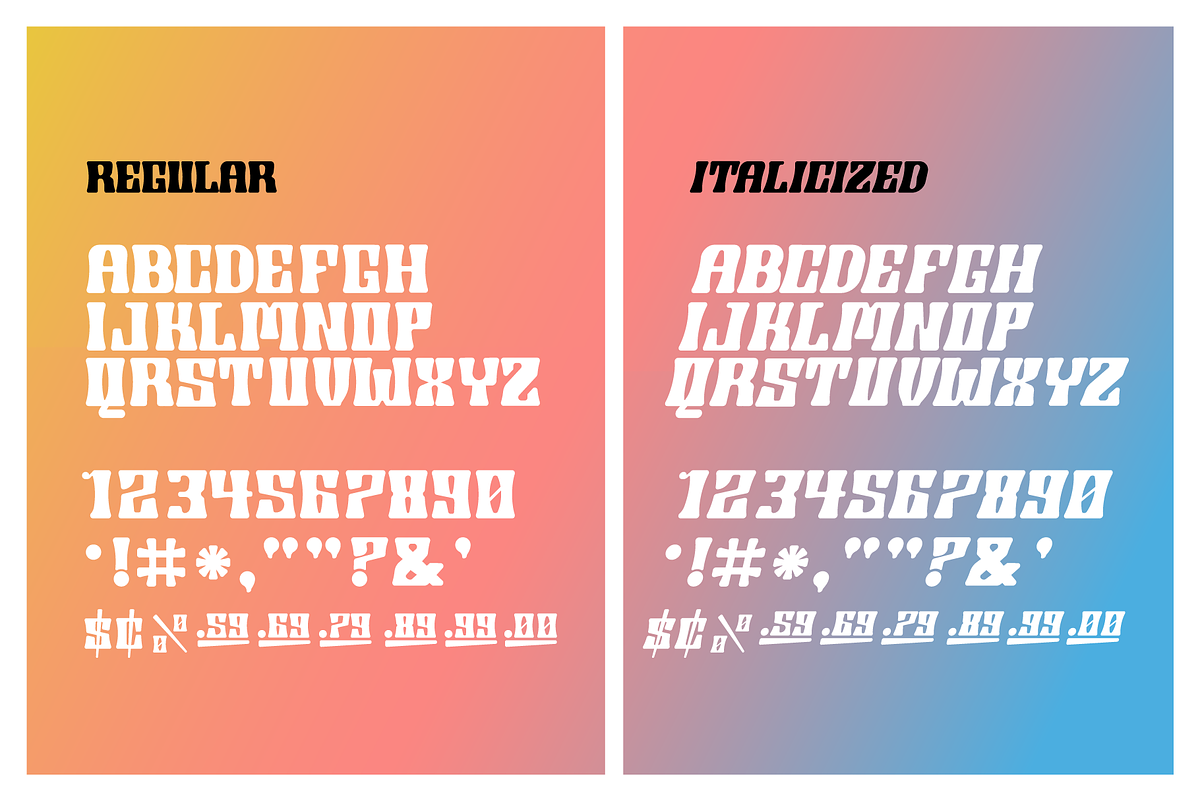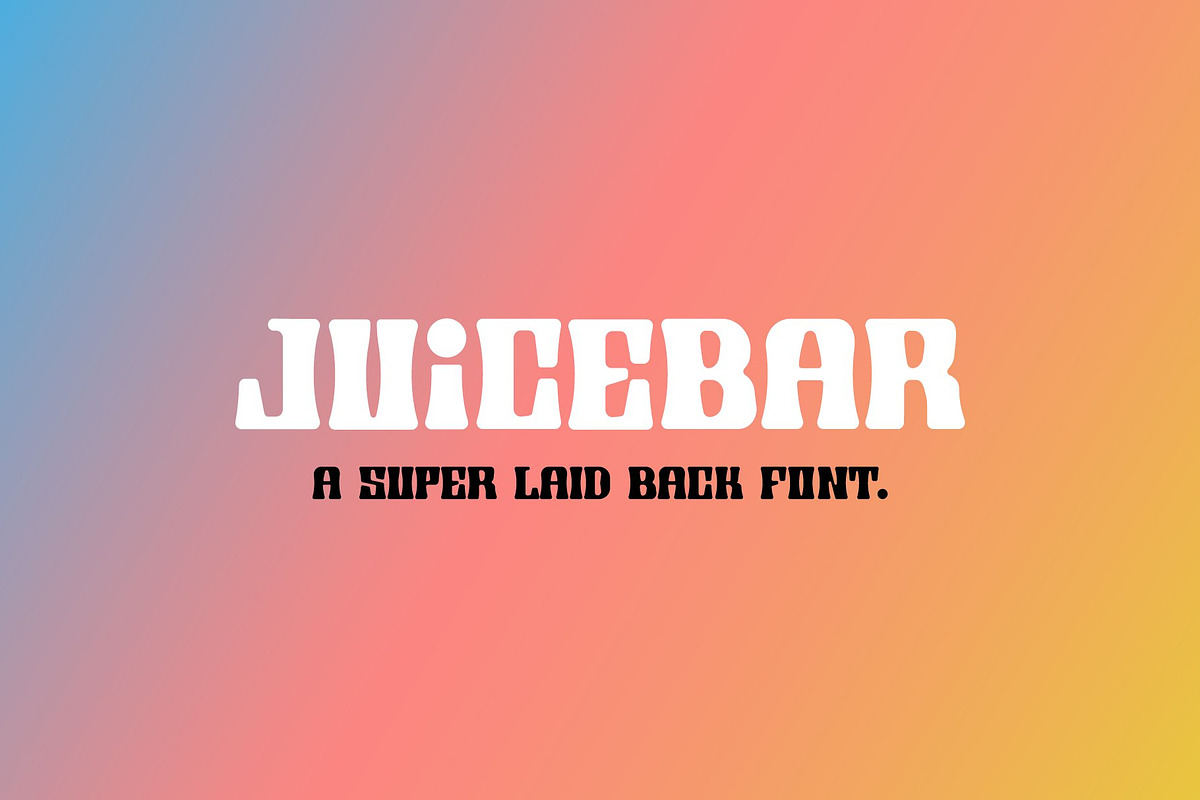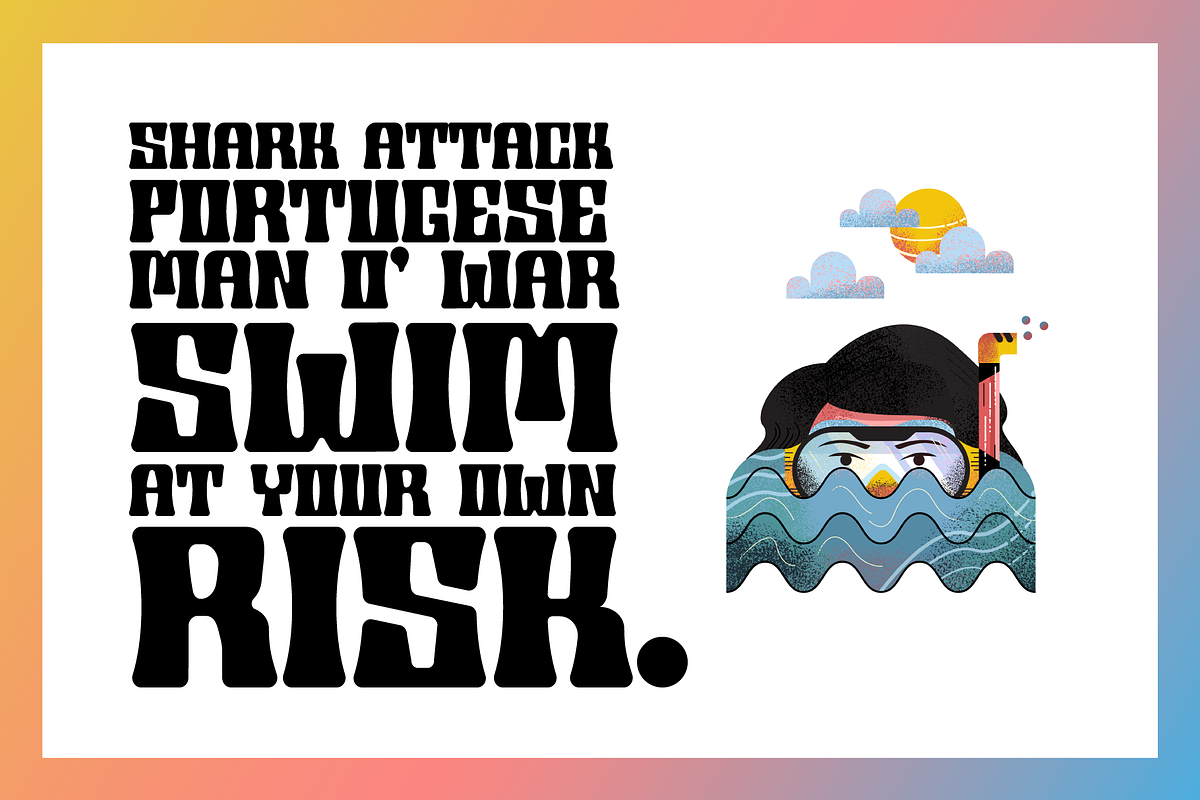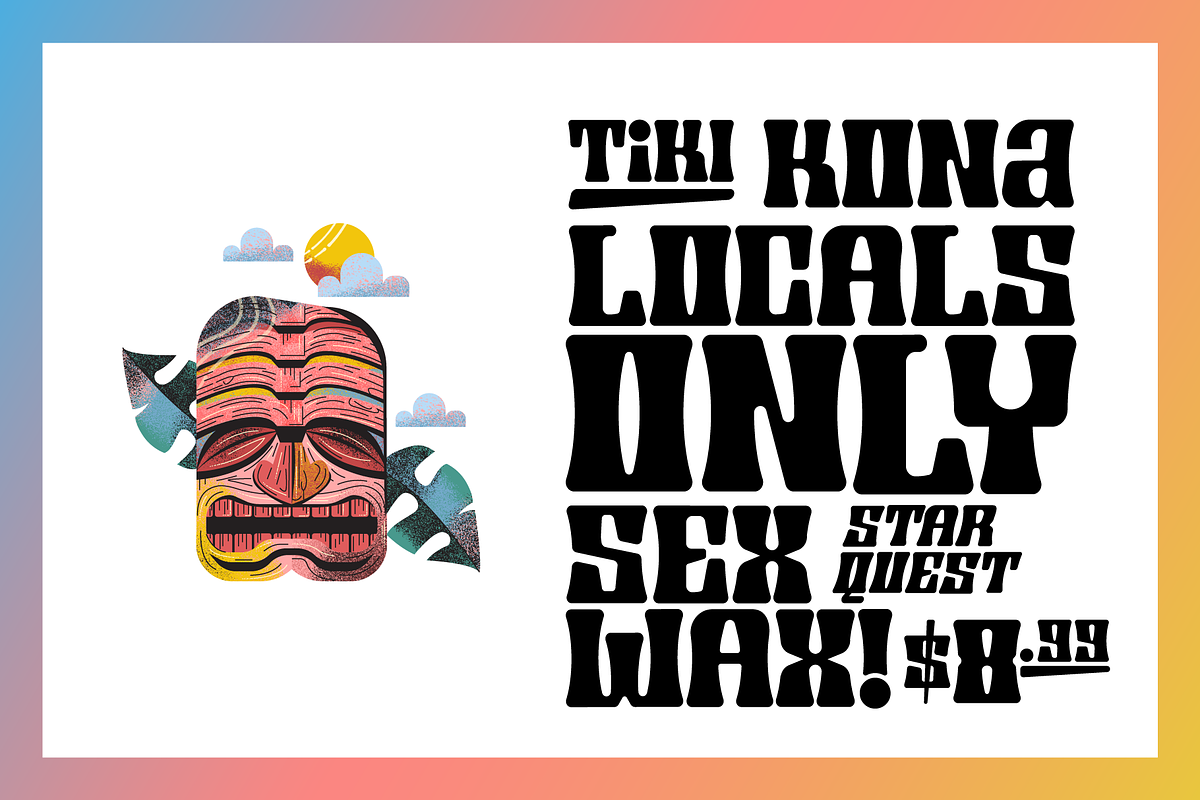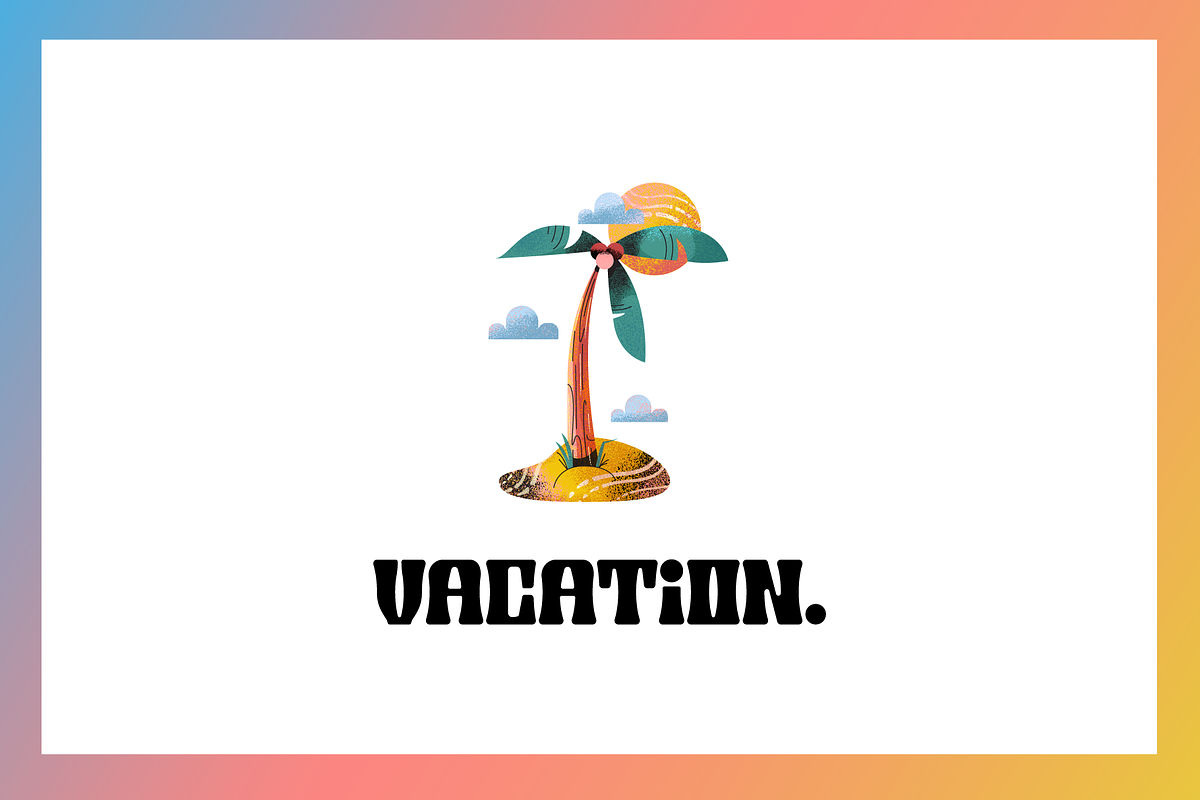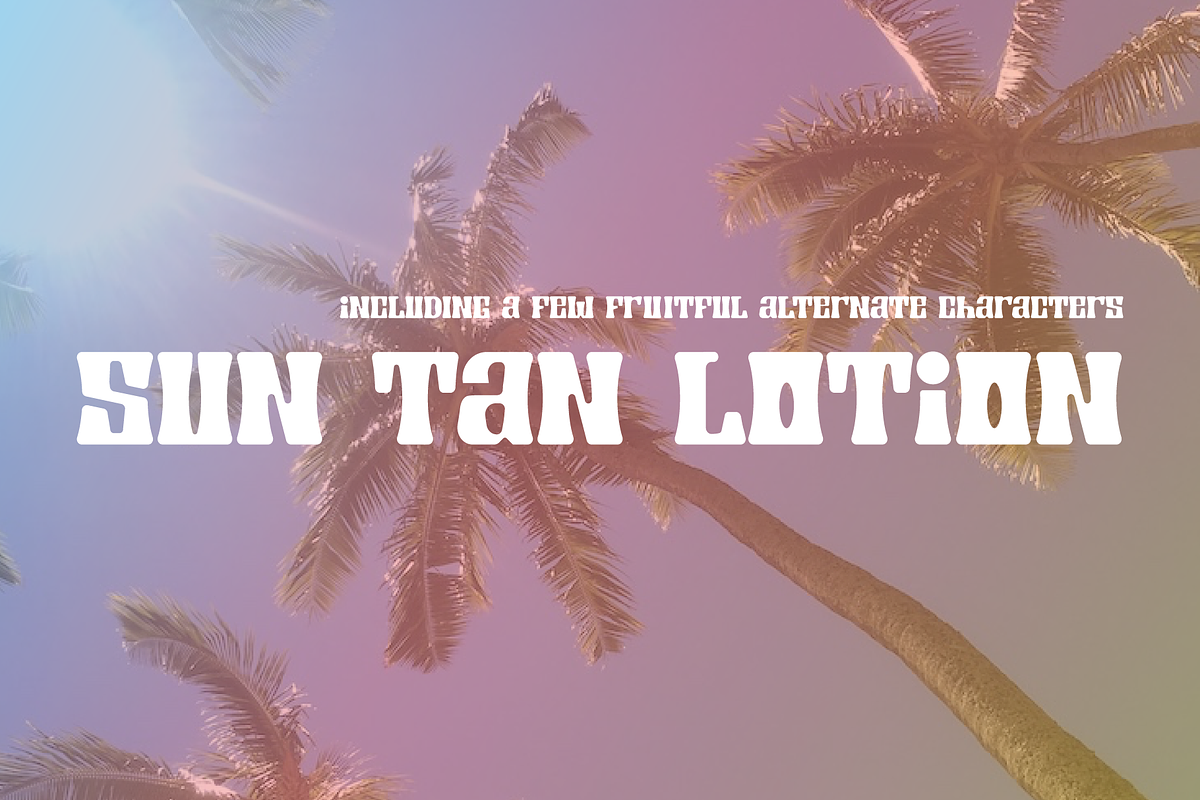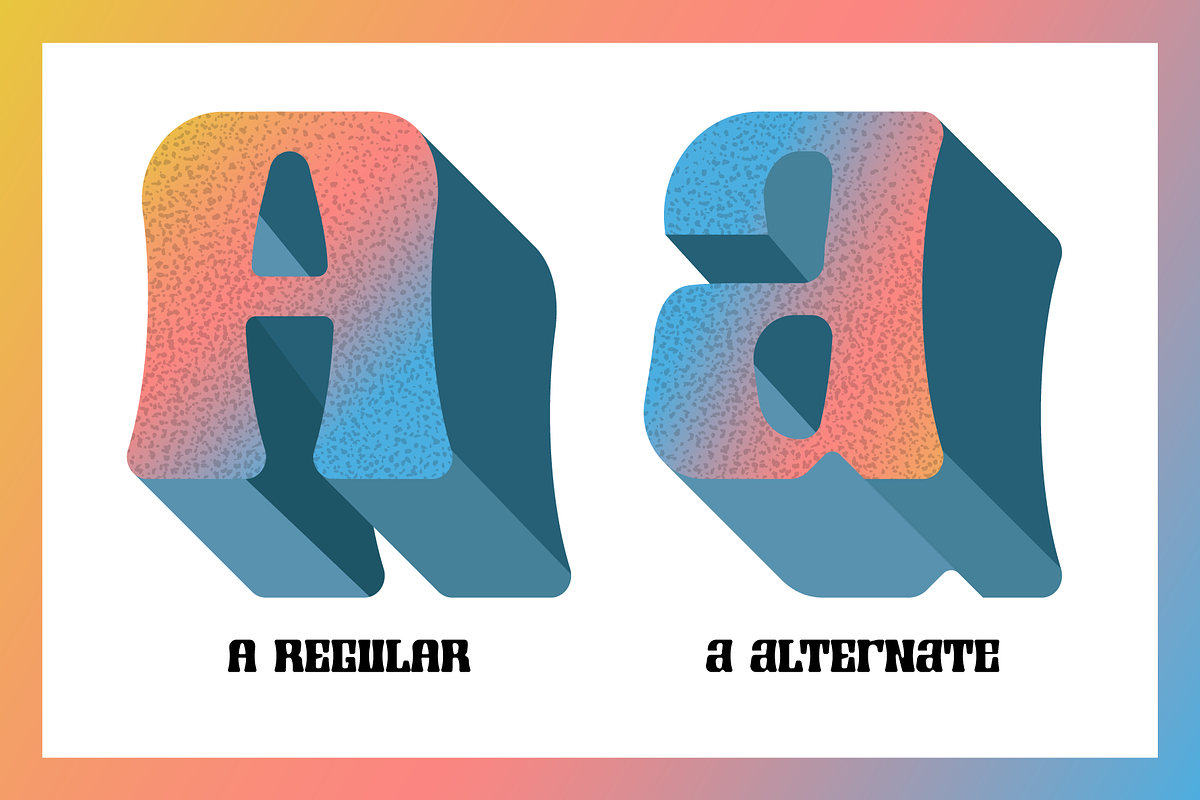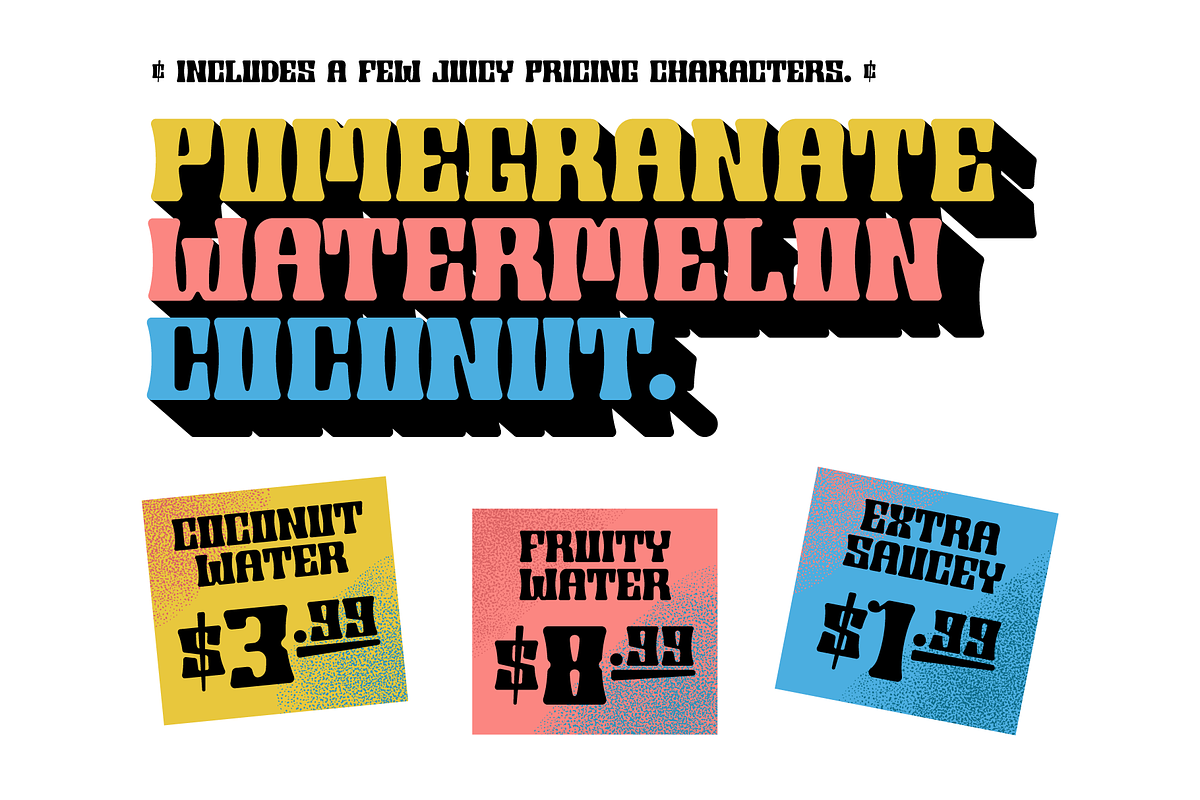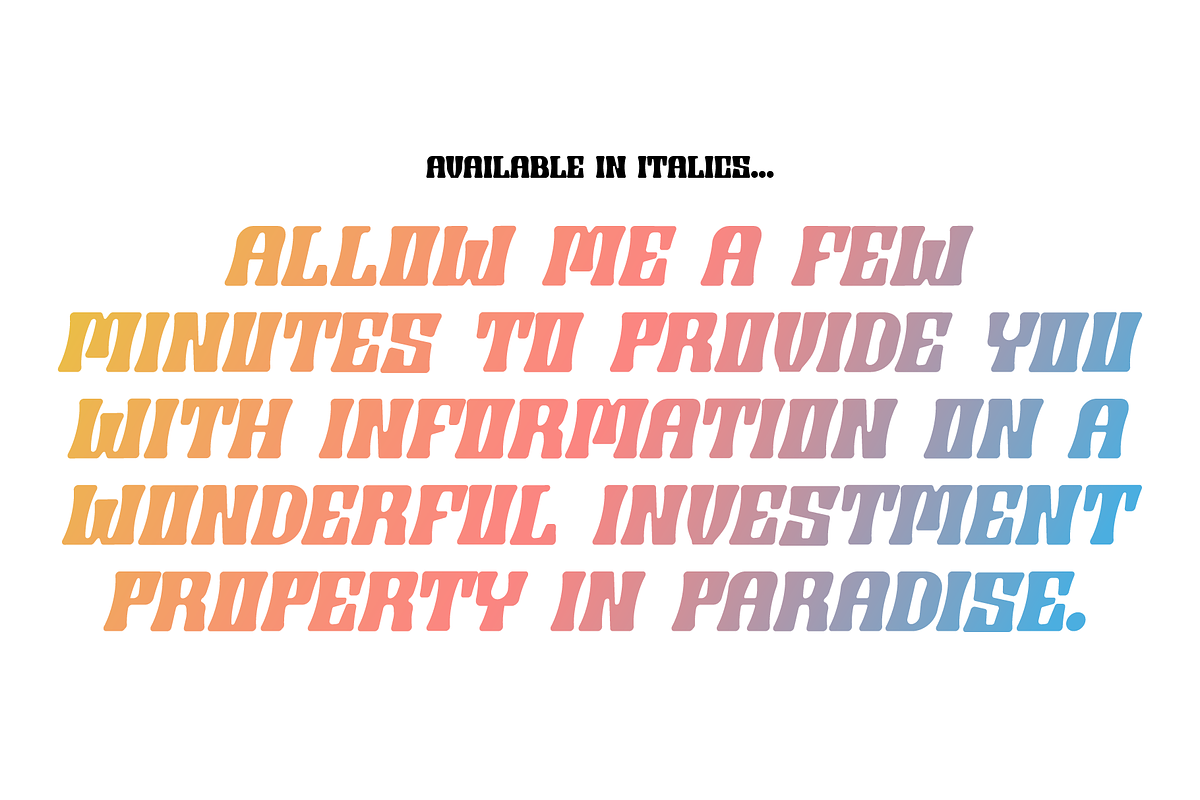
Juicebar Display Font
Juicebar is a display font with two styles, Regular and Italic. This font is playful, and perfect for menus, merchandise, headlines, block quotes, and creative projects. It's vintage but futuristic. Various alternates and special characters make this font a great addition to your creative toolkit.
Includes: • Regular Font • Italic Font • Special Characters • Alternates • All Caps Lettering